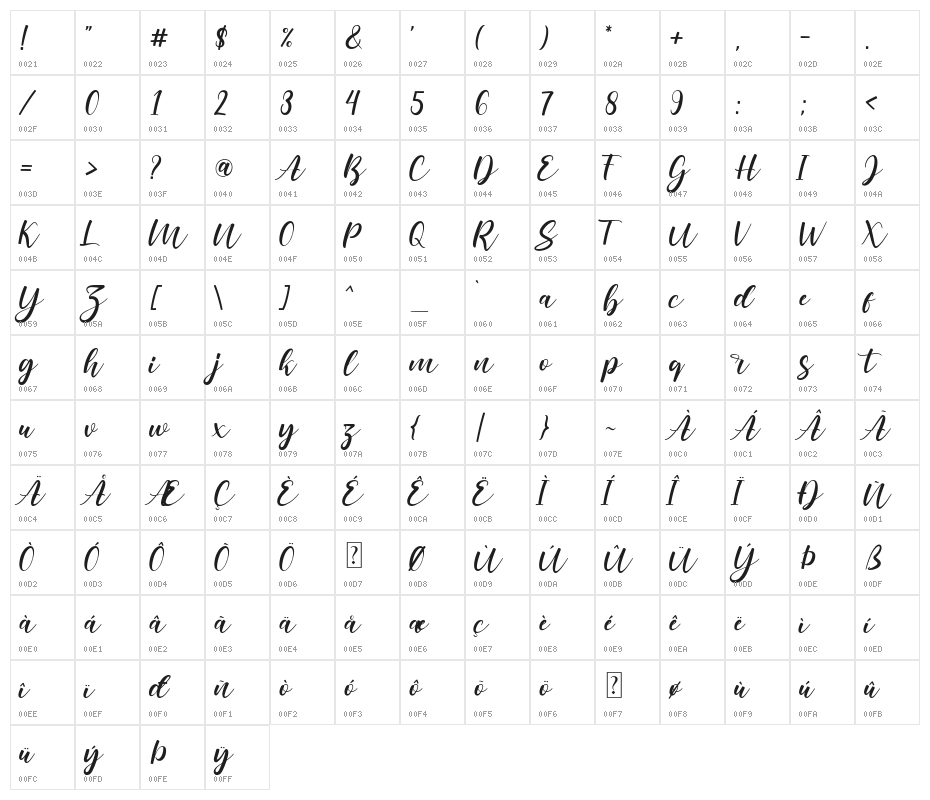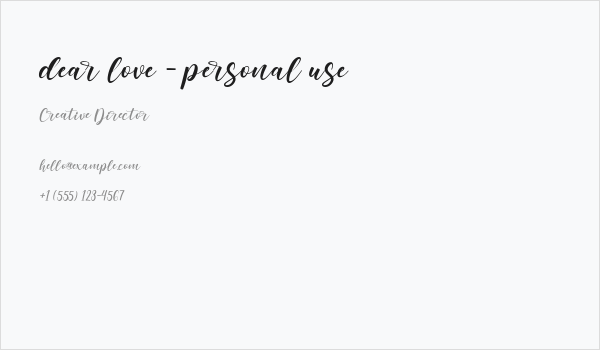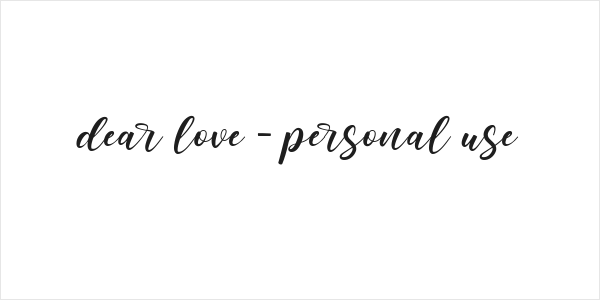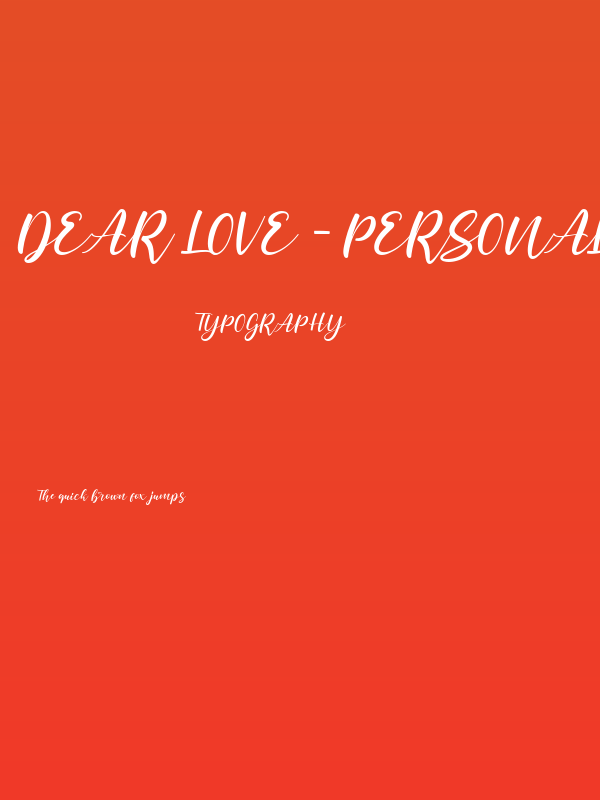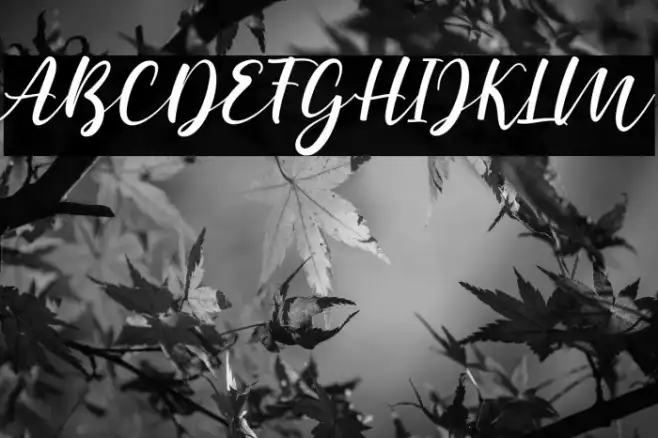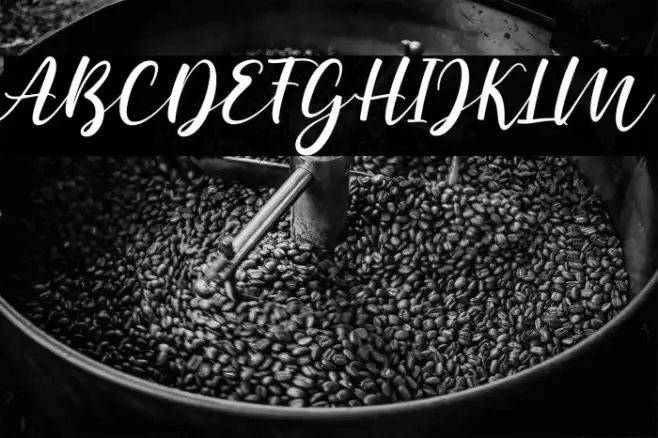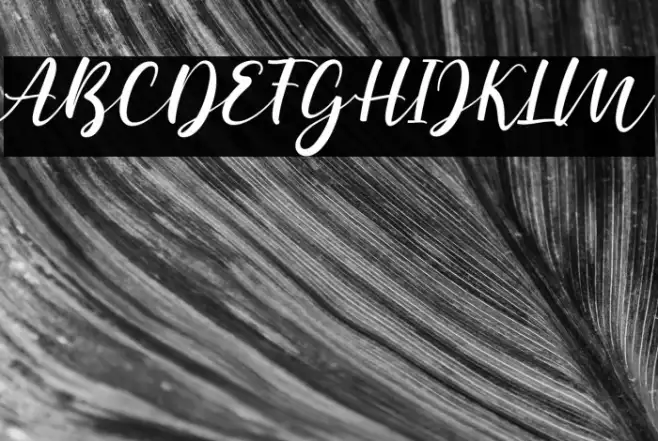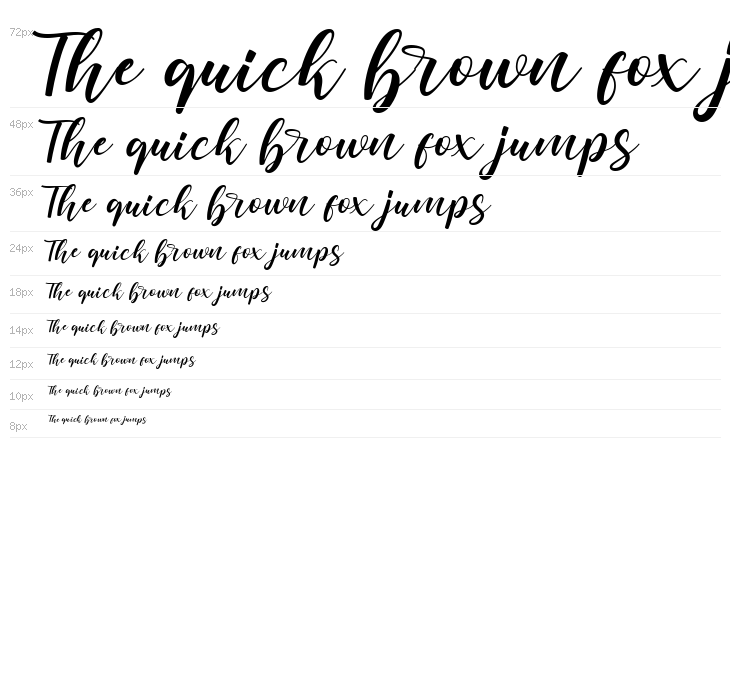
dear love - personal use Font
dear love - personal use Description
This font features an elegant and flowing script style, characterized by its smooth, cursive strokes and graceful curves. The letters are interconnected, giving it a handwritten appearance that exudes sophistication and charm. The uppercase letters are slightly more ornate, with flourishes that add a touch of flair, while the lowercase letters maintain a consistent fluidity. The numerals and special characters are designed to complement the overall aesthetic, maintaining the same elegant style. This font is perfect for adding a personal and romantic touch to any design.
| Overall Style | Elegant, Romantic |
| Use Case | Headlines, Invitations, Personal Branding |
| Proposed Projects | Ideal for wedding invitations, greeting cards, personal branding, and romantic-themed designs. |